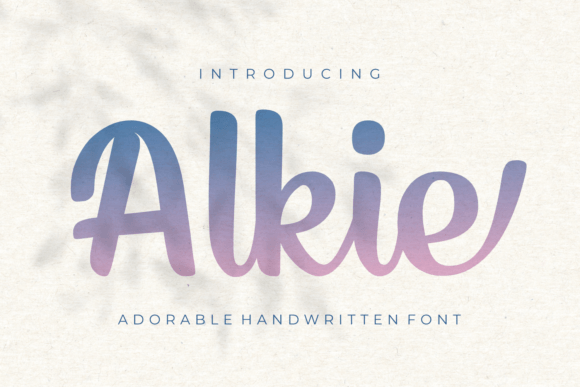
The Ultimate Guide to Alkie Font: Elevate Your Typography Designs
I’ll never forget the time I was working on a wedding invitation project, and my client asked me to create a custom design that exuded elegance and sophistication. As I scrolled through my font library, I realized I needed something special – a font that would make the invitation stand out and leave a lasting impression. That’s when I stumbled upon Alkie Font, a bold and beautiful script font that has since become a staple in my design toolkit.
Alkie is more than just a font – it’s a design statement. With its charming and elegant feel, it’s perfect for adding a touch of sophistication to any typography design. In this article, we’ll dive into the world of Alkie Font, exploring its features, how to use it, and what makes it so special.
An Honest Review of Alkie Font
What I Love About Alkie Font
• ✨ Beautifully crafted design: Alkie Font is a stunning script font that’s perfect for creating gorgeous invitations, business cards, greeting cards, labels, logos, watermarks, product packaging, and more.
• ✅ PUA encoded: This font is PUA encoded, making it easy to access all the glyphs and swashes, giving you endless creative possibilities.
• 💫 Highly versatile: Alkie Font can be used for a wide range of design projects, from formal events to business branding.
While Alkie Font is an amazing design tool, there are a few things to keep in mind:
• ⚠️ Glyph access: Some users may find it tricky to access certain glyphs and swashes, but with a little practice, you’ll get the hang of it!
• 🤔 Font pairing: As with any script font, pairing Alkie with other fonts can be a bit tricky. Experiment with different combinations to find the perfect match.
The Backstory of Alkie Font
Alkie Font was designed with the intention of creating a beautiful, elegant script font that would add a touch of sophistication to any design project. Inspired by classic calligraphy and modern typography, Alkie Font is the perfect blend of traditional and contemporary design.
Q: What is Alkie Font?
Alkie Font is a bold and beautiful script font designed to add a charming note to your typography designs.
Q: Is Alkie Font PUA encoded?
Yes, Alkie Font is PUA encoded, making it easy to access all the glyphs and swashes.
Q: How do I access glyphs and swashes in Alkie Font?
Glyphs and swashes can be accessed using the OpenType features in Adobe Photoshop, Illustrator, or other compatible design software.